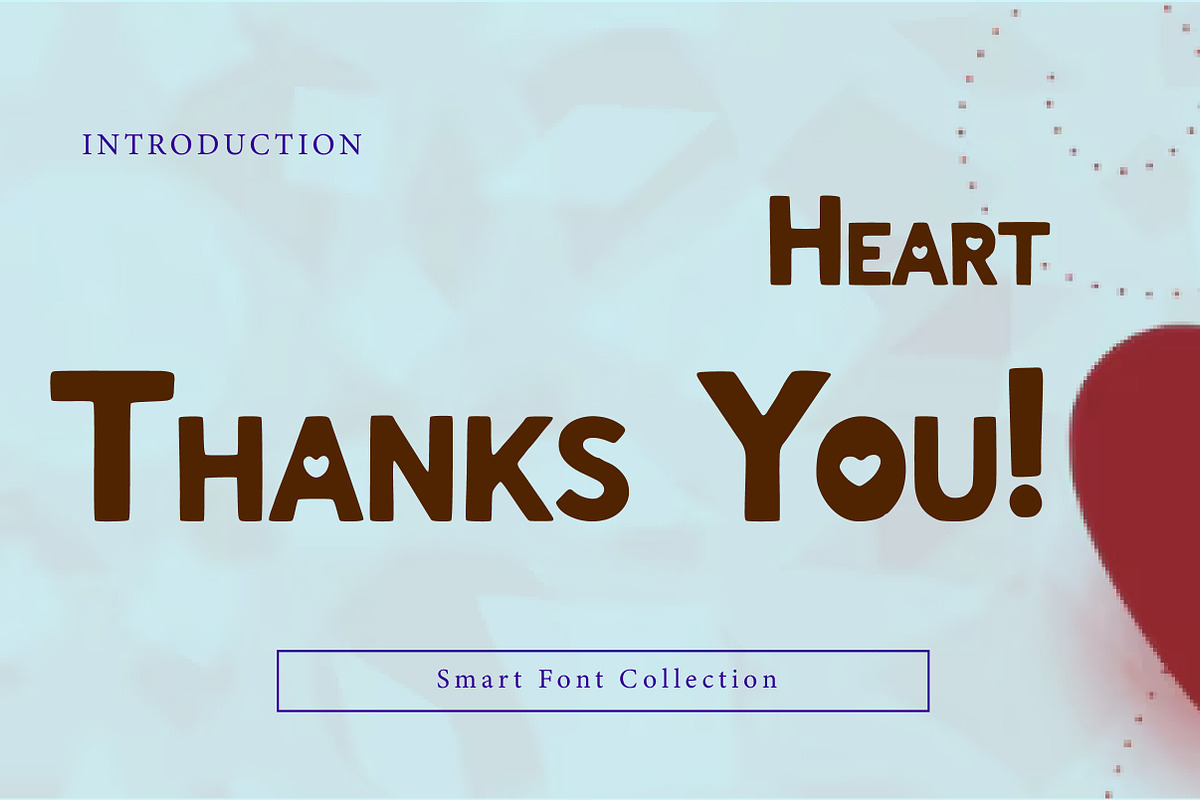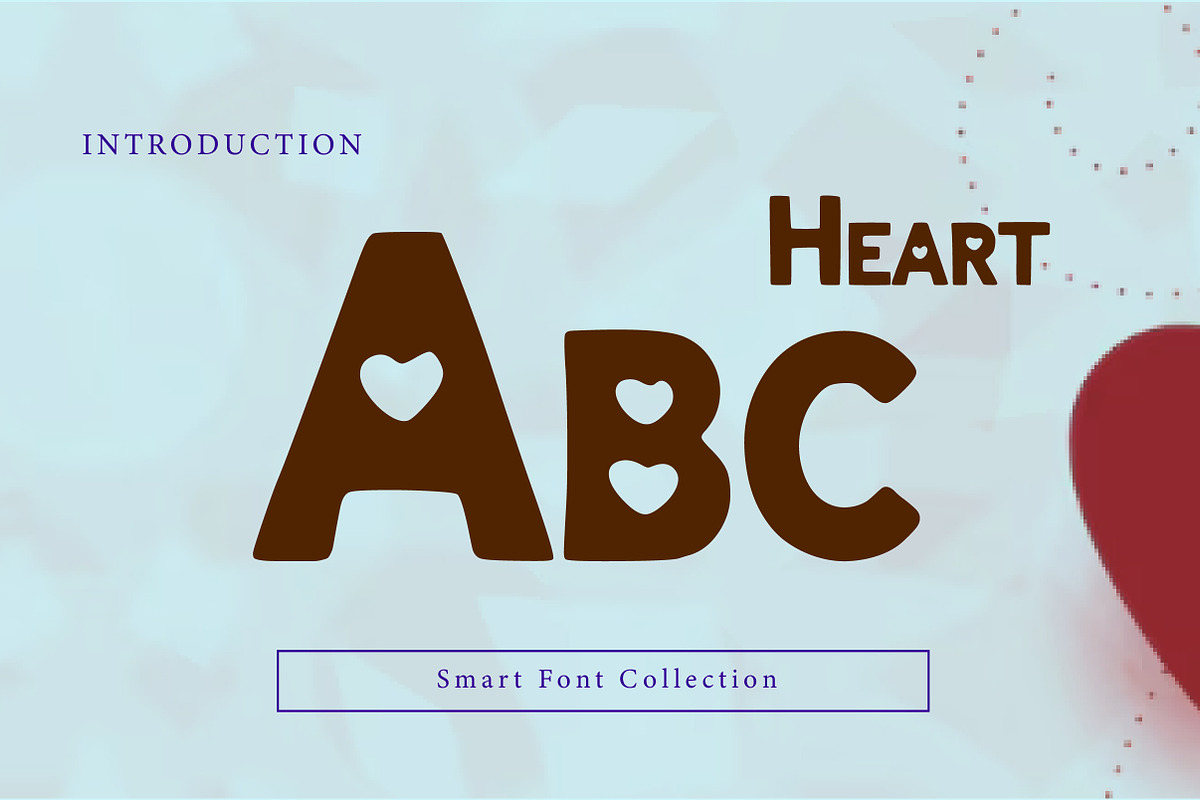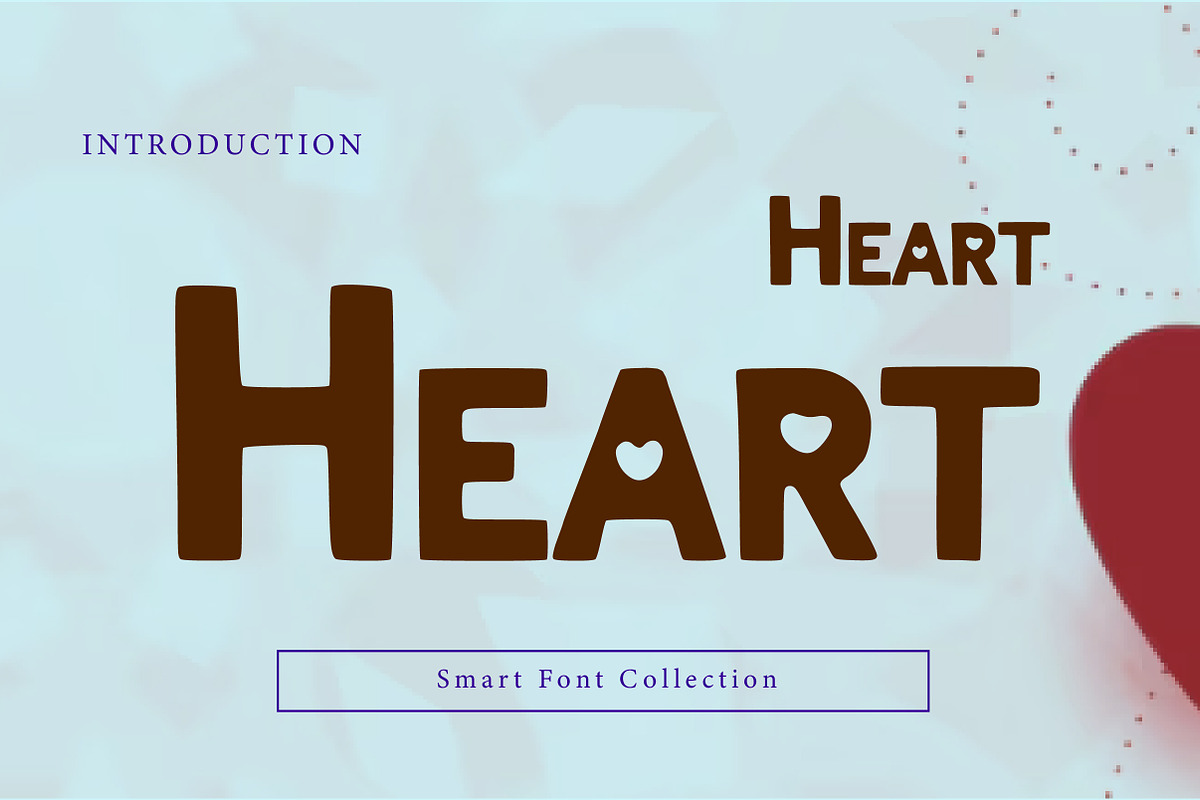
Heart
Heart is a bold, cute display font designed with charming heart-shaped cutouts that instantly communicate love and warmth. Its chunky letterforms and playful proportions make it perfect for Valentine’s Day designs, romantic branding, kids projects, greeting cards, stickers, apparel, packaging, and cheerful social media graphics. Heart brings a fun, lovable personality to your typography—ideal for designs that want to feel sweet, friendly, and full of affection.